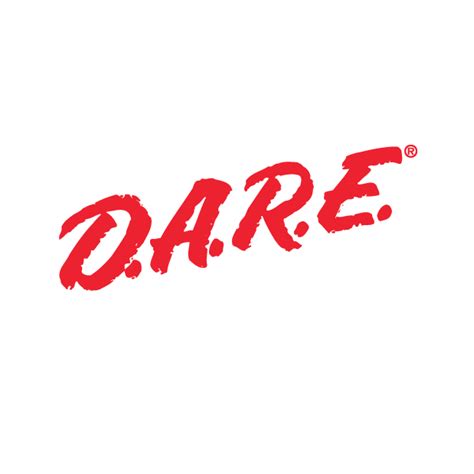
D.a.r.e Font. Web dare € by cj cook. Logo font, then you can save the font image to your pc, mac, linux, ios and.
Logo font, then you can save the font image to your pc, mac, linux, ios and. Cj cook made a font. Web dare € by cj cook. Web free for personal use preview download :: 55,006 downloads (10 yesterday) free for personal use. Try our text generator and create cool graphics for d.a.r.e. Logo font generator & download is available free at fontbolt. Web dare font free download. That’s why it contains irregularity which makes it unique from all the others. Web drug abuse resistance education (d.a.r.e.) is an education program founded in los angeles in 1983.
Web dare € by cj cook. Dare font is a script brush font that specially created for horror projects. Web dare font free download. 55,006 downloads (10 yesterday) free for personal use. Logo font generator & download is available free at fontbolt. An american font designer mr. Web free for personal use preview download :: Cj cook made a font. It seeks to prevent use of controlled drugs, membership in gangs, and violent behavior. Try our text generator and create cool graphics for d.a.r.e. Logo font, then you can save the font image to your pc, mac, linux, ios and.